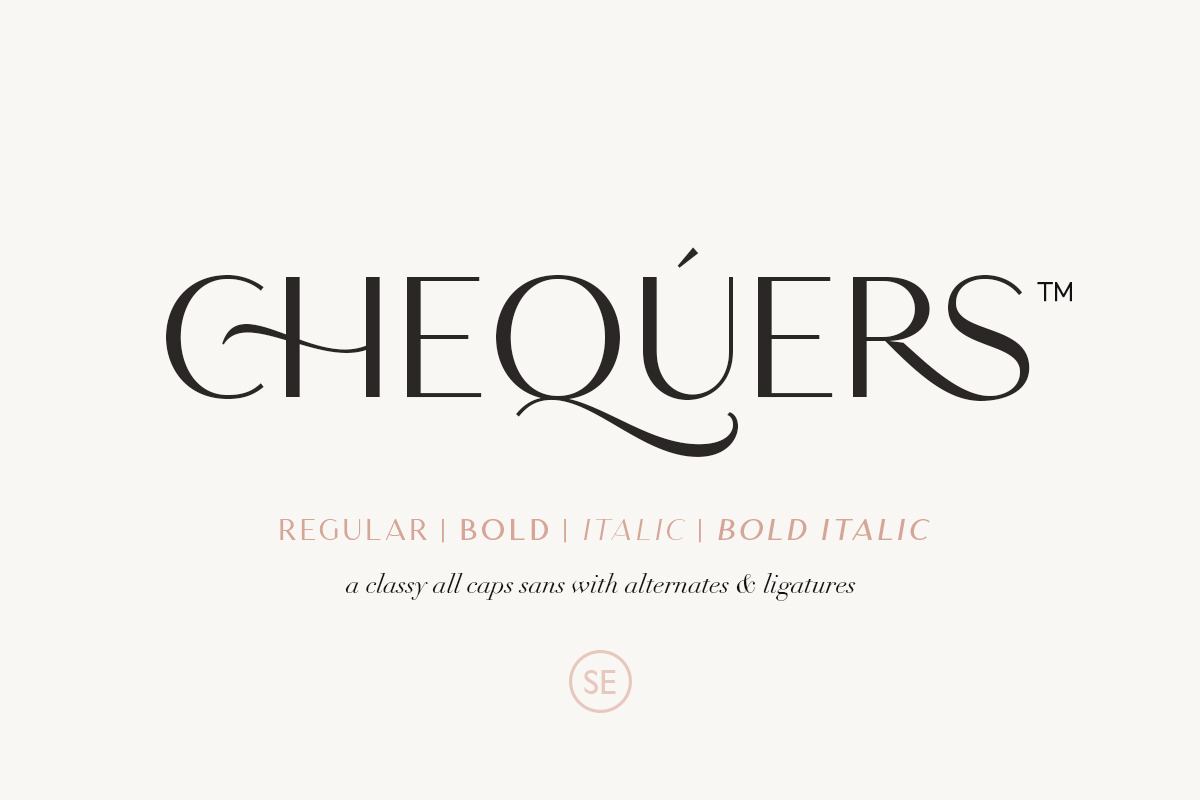
Introducing Chequers Modern Sans Serif Font Free Download, a classic and modern sans serif typeface designed by Sarid Ezra. This font features unique uppercase and lowercase characters, along with a variety of essential ligatures that enhance the visual appeal of your presentations or logos. Ideal for luxury branding, editorial design, and high-end product packaging, Chequers adds a sophisticated touch to any project. Download Chequers Modern Sans Serif Font Free Download to explore its features in personal projects. For commercial use, please ensure you purchase the appropriate license. Elevate your designs with the elegance and versatility of Chequers Modern Sans Serif Font Free Download